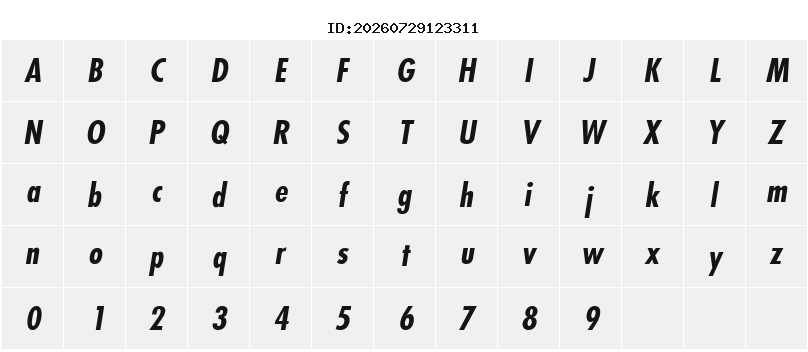
Kudos Black Condensed SSi Preview
• Font Name: Kudos Black Condensed SSi
• Font Style: Bold Condensed Italic
• Full Font Name: Kudos Black Condensed SSi Bold Condensed Italic
• Version: Oblique
About Kudos Black Condensed SSi.ttf
Kudos Black Condensed SSi.ttf is a modern, elegant sans-serif font designed for ultimate readability and visual harmony. Perfect for branding, headlines, web design, and print materials.